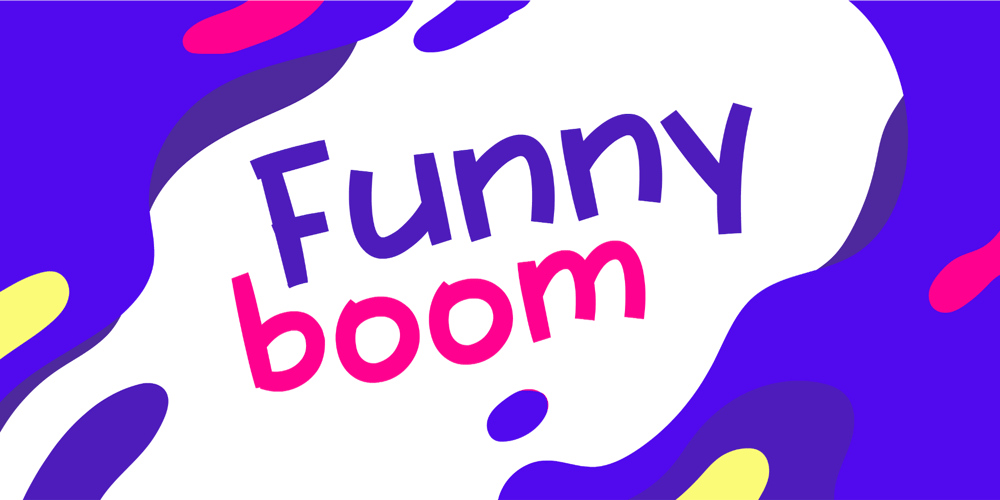
Funny Boom Font Family was designed by Wahyu Eka Prasetya, Afiat Sukmaraga and published by Hati. Funny Boom contains 1 styles and family package options. This font is a bouncy, playful font that bursts with childhood charm. Its hand-drawn style evokes the innocent scribbles and energetic letters of a child’s imagination. This font is perfect for grabbing the attention of young readers and adding a lighthearted touch to children’s book covers, educational materials, and playful branding.